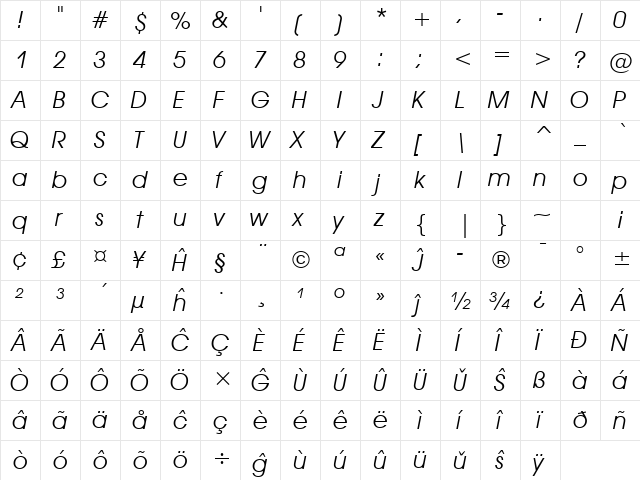
AvantGarde Bk BT Eo Book Oblique
Design Context for AvantGarde Bk BT Eo Typeface
AvantGarde Bk BT Eo takes a measured approach to typography — its balanced proportions and neutral character make it a reliable workhorse for both digital and print work. The dynamic lean of this cut emphasises speed and emphasis in any layout.
Pro Tip: Use AvantGarde Bk BT Eo for emphasis, pull quotes, and subheadings where its slanted energy can add rhythm to the layout.